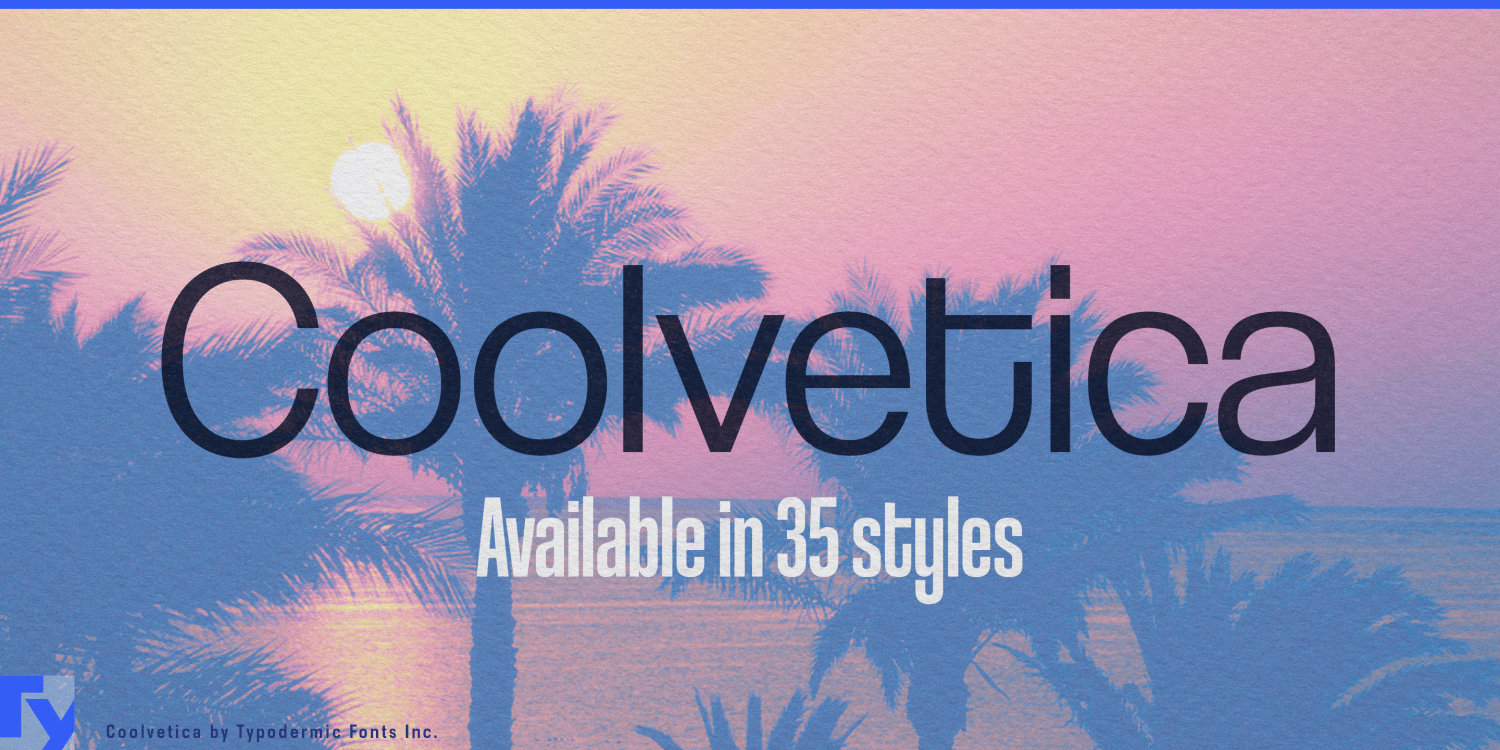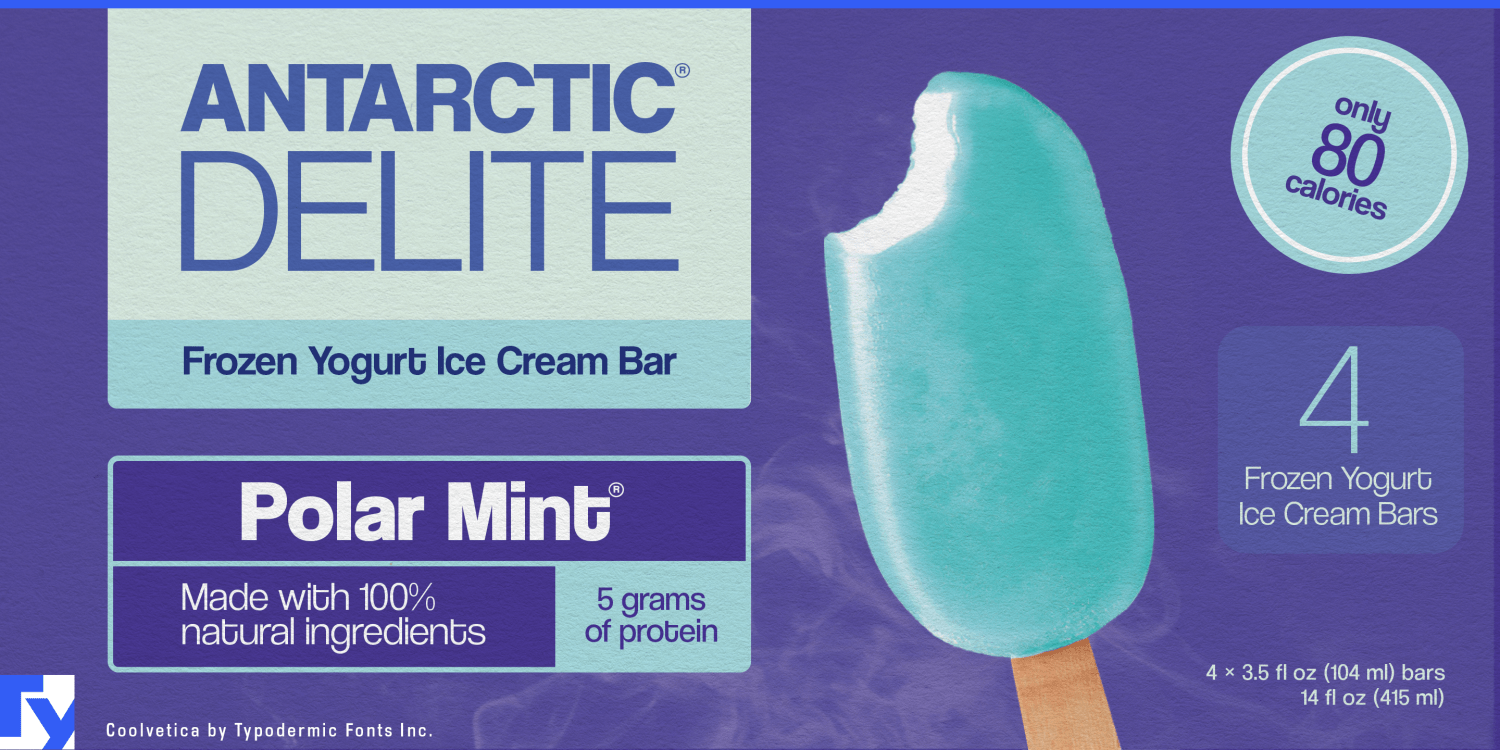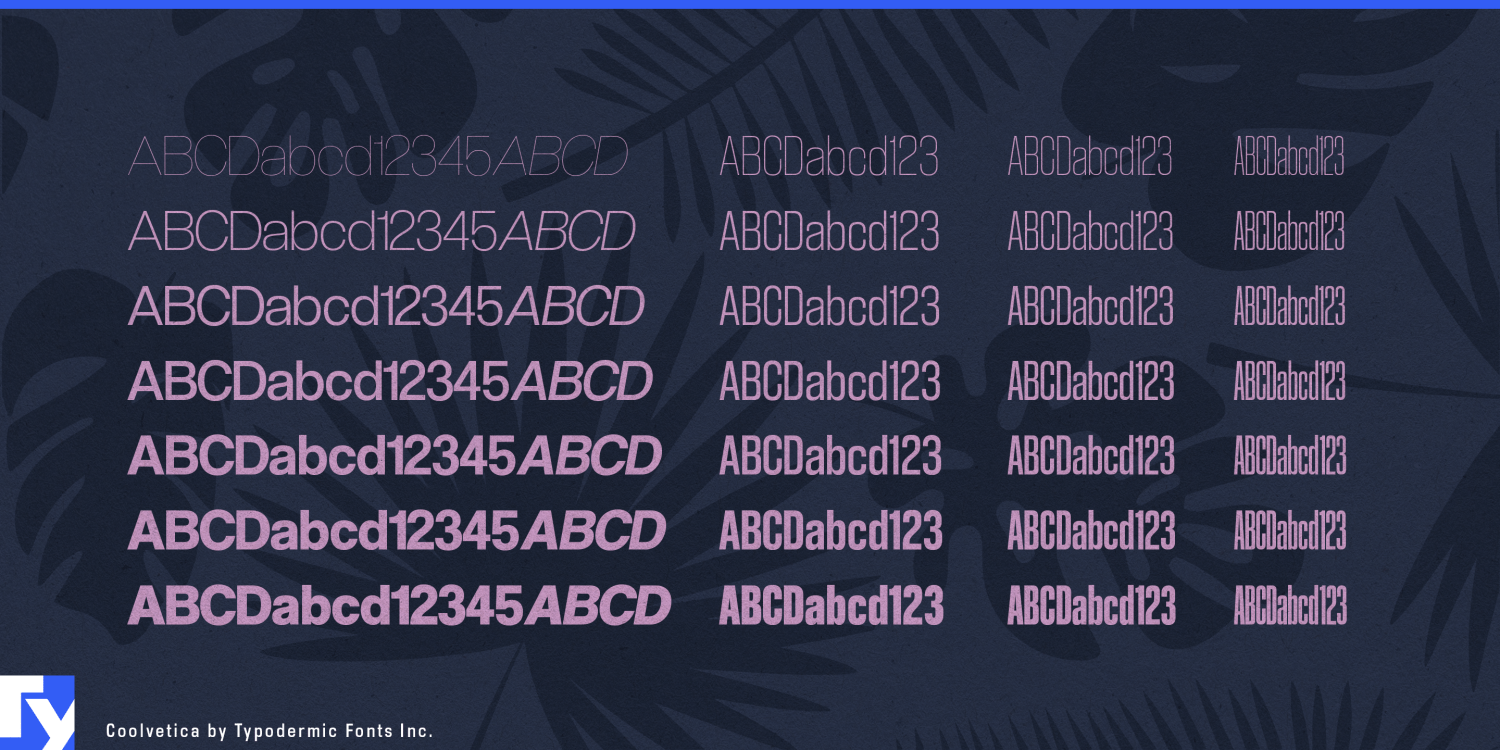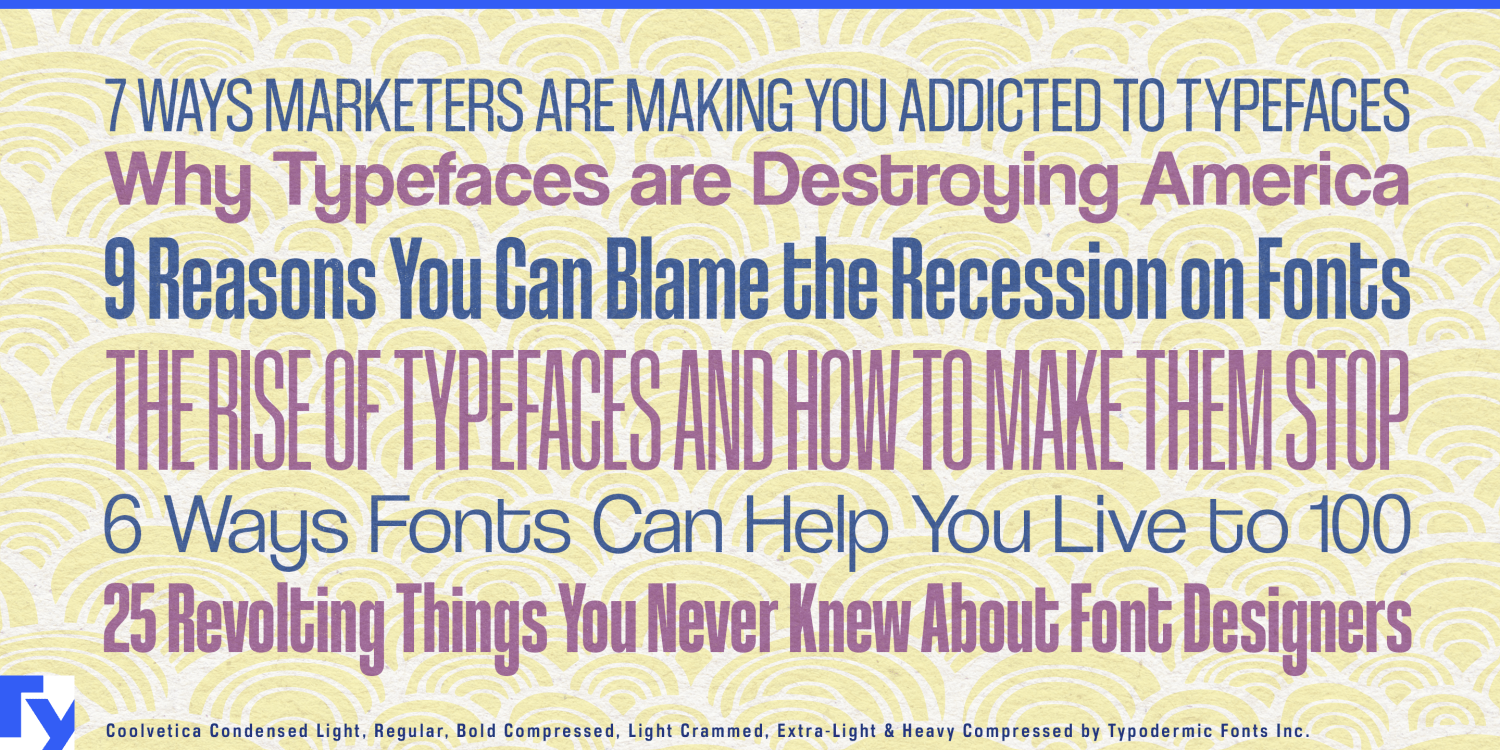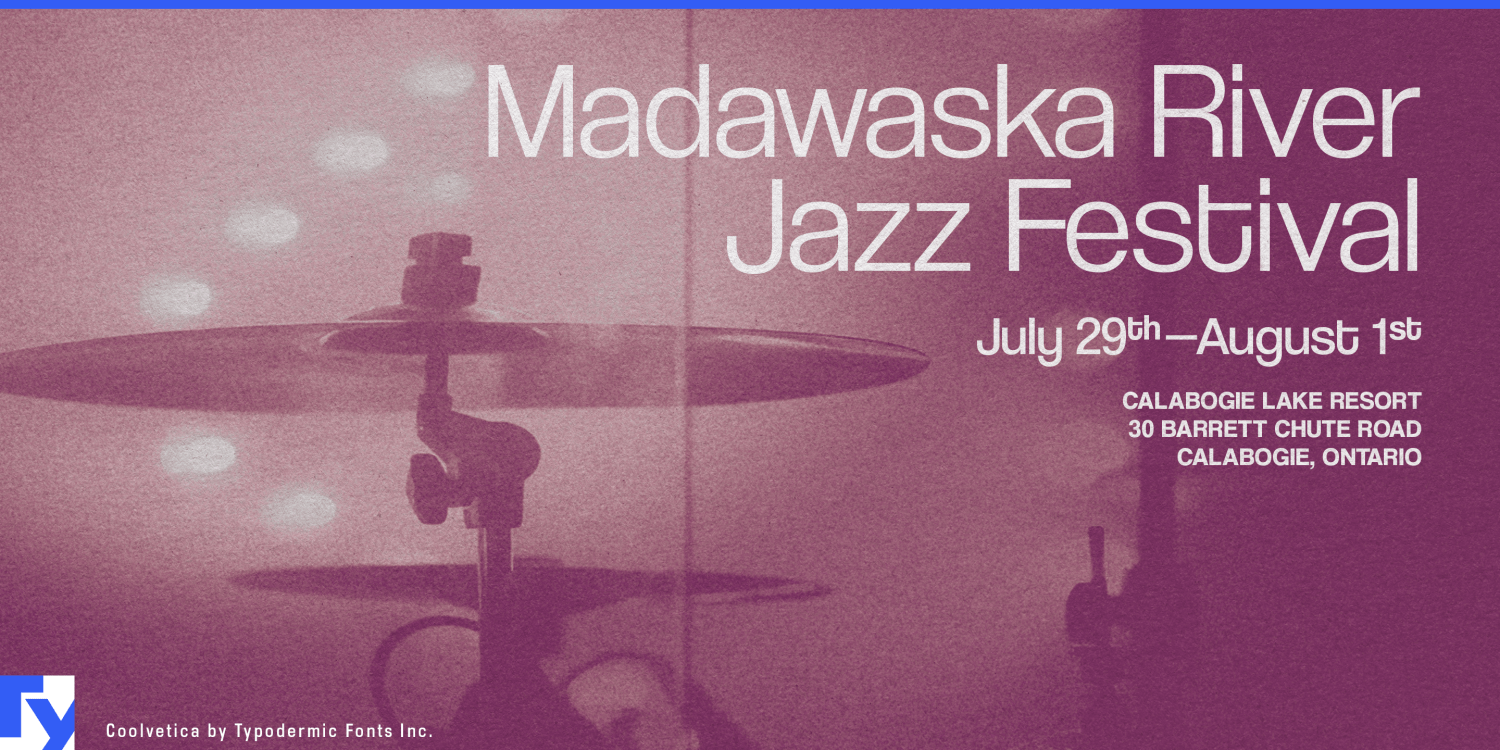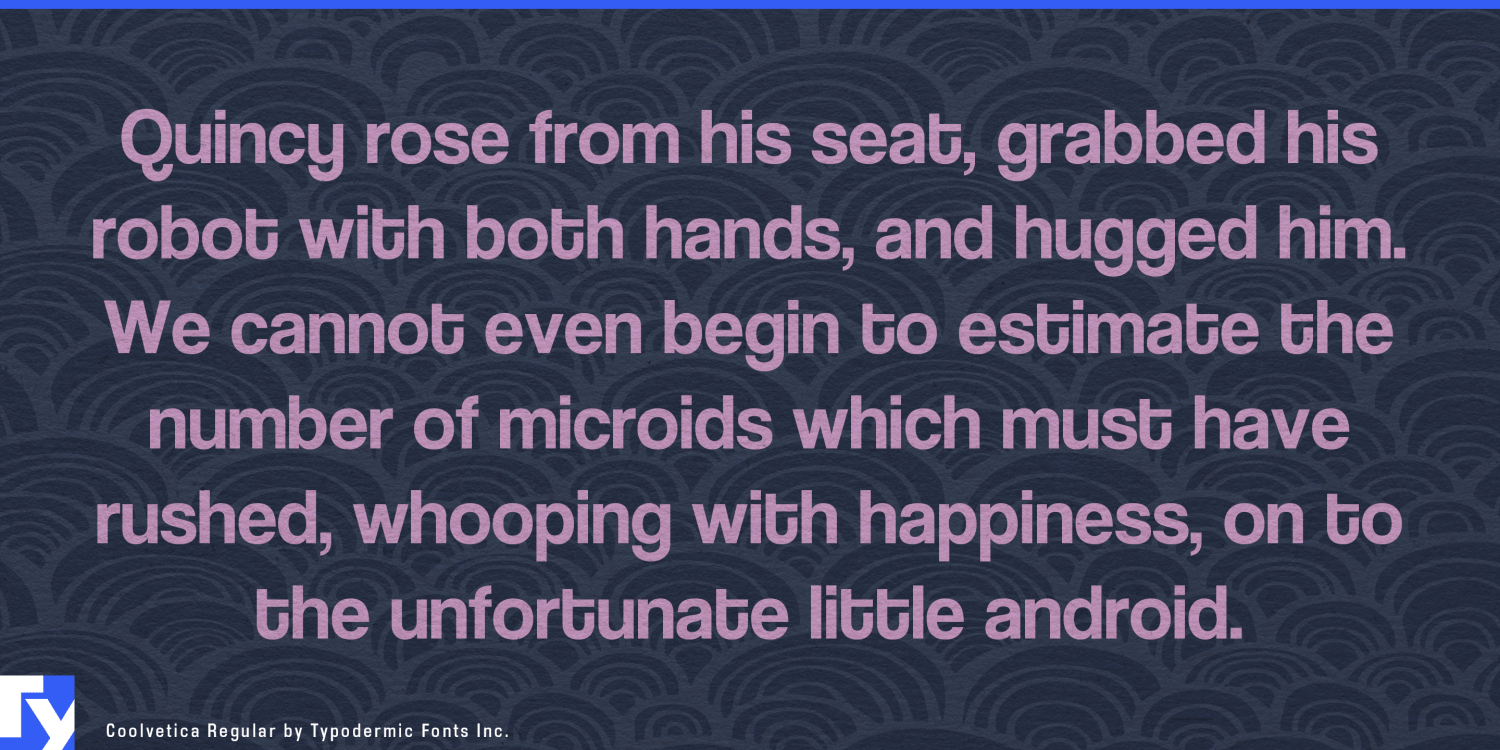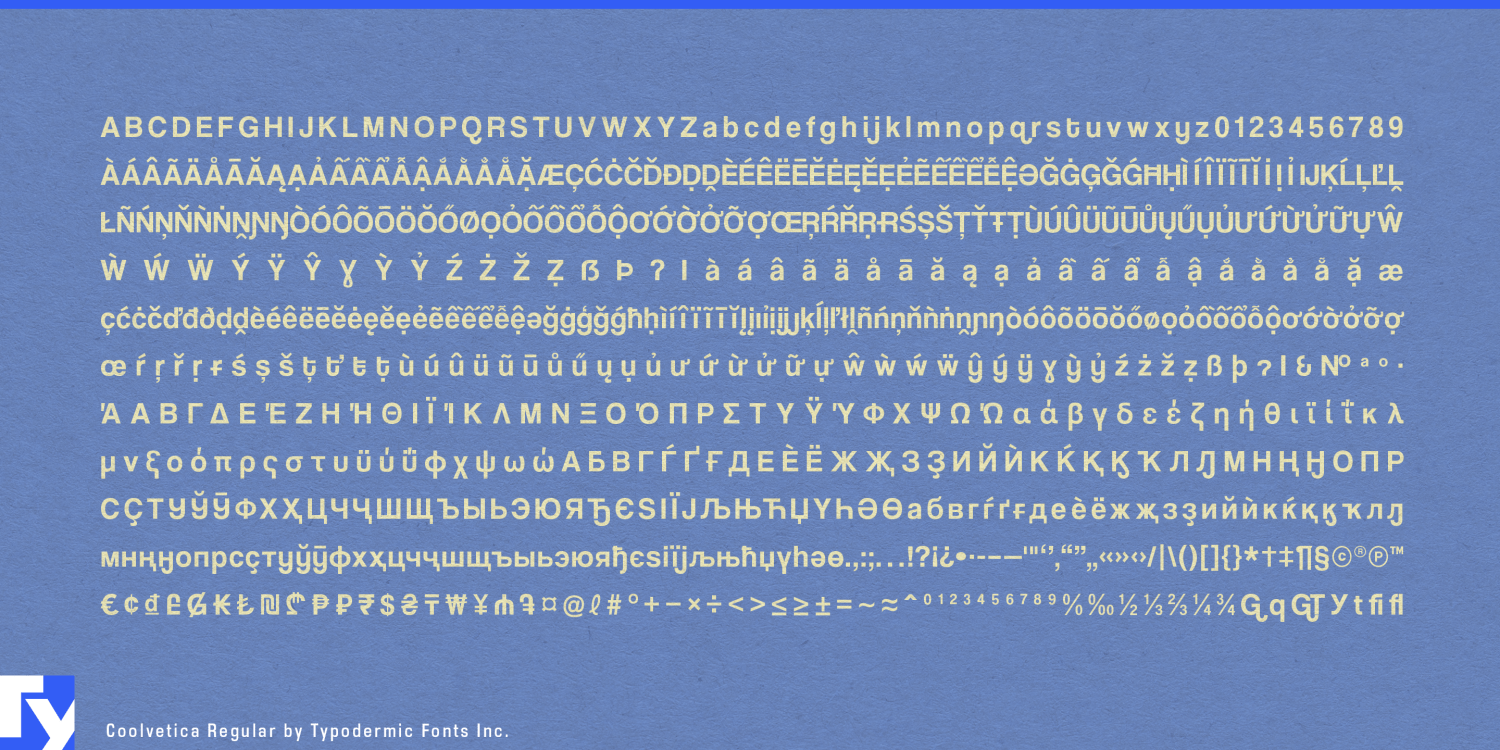
Coolvetica
Coolvetica is display typography through and through. Its tight spacing gives headlines, product names, and short campaign phrases an almost custom-lettered snap; that same density makes it a poor choice for deep reading in sustained text. The broader family does not turn Coolvetica into a general-purpose sans serif. It gives designers more ways to keep display type large when the available space changes.
That matters most in product systems built around incompatible package shapes. A hair-care or personal-care range may have to place one visual identity across broad cartons, narrow styling tubes, pump bottles, refill pouches, treatment jars, salon displays, and transit advertising. Short names can spread comfortably across wide panels, while longer product names can move into narrower styles instead of shrinking into secondary information.
National beverage systems create the same problem at larger scale. A sparkling-water or functional-drink line may span slim cans, bottles, multipacks, vending machines, refrigerator headers, convenience-store displays, and delivery-app graphics. Flavour names can vary dramatically in length; Coolvetica’s width range lets them remain prominent graphic elements rather than forcing every package to accommodate the longest one.
Seasonal fashion and beauty campaigns introduce another set of rectangles. One collection name or promotional phrase might have to fill a storefront window, narrow entrance lightbox, escalator graphic, shopping bag, transit poster, mobile ad, and digital sign. Coolvetica’s condensed and compressed styles let campaign language stay deliberately oversized where a standard-width face would wrap awkwardly or become too small.
Localized entertainment campaigns face a similar challenge. A streaming comedy, reality series, food competition, or music documentary may need title graphics for television interfaces, square thumbnails, vertical mobile ads, billboards, merchandise, and event displays. Translation can change the length of a title or tagline dramatically; Coolvetica’s range makes it possible to adapt the proportions while preserving the dense, logo-like character of the campaign.
When the rectangle changes, the words do not have to surrender. Coolvetica’s range gives designers multiple ways to preserve large, tightly fitted display typography across product lines, campaigns, and localized assets. Use it for the headline, product name, collection title, or phrase that has to dominate the composition; hand the paragraphs to something else.